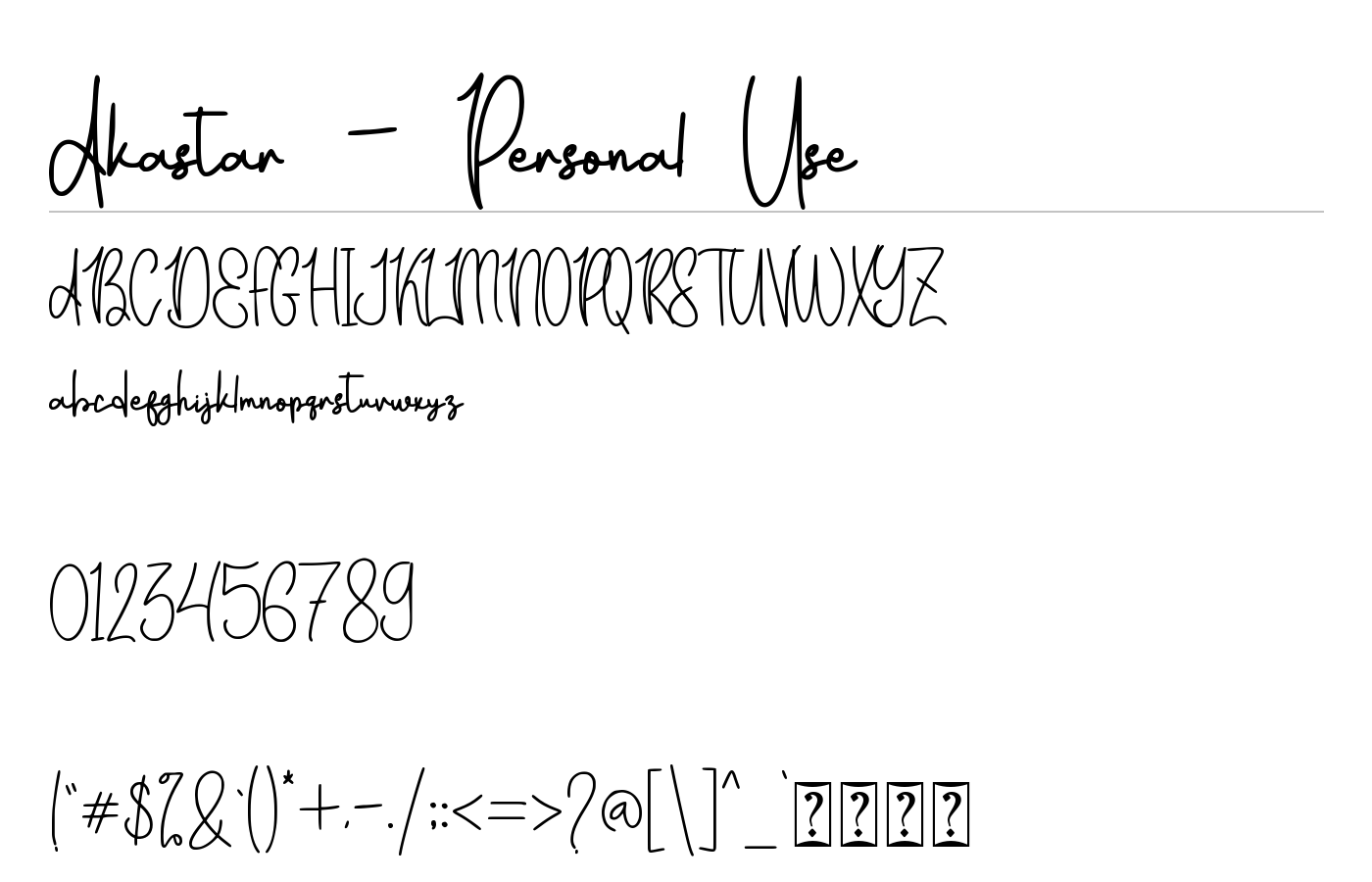
Akastar is a delicate, hand-drawn script font with a playful and whimsical character. Its tall, narrow letterforms and light, flowing strokes give it an elegant yet casual feel, making it ideal for personal projects, creative branding, and invitations where a unique, handmade touch is desired. This font works best in display uses such as logos, greeting cards, or social media graphics, where its charming personality can truly shine.
Akastar - Personal Use Font
About Akastar - Personal Use Font